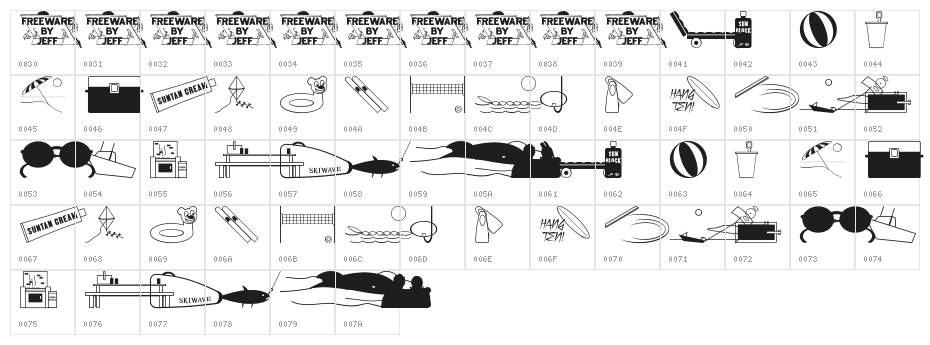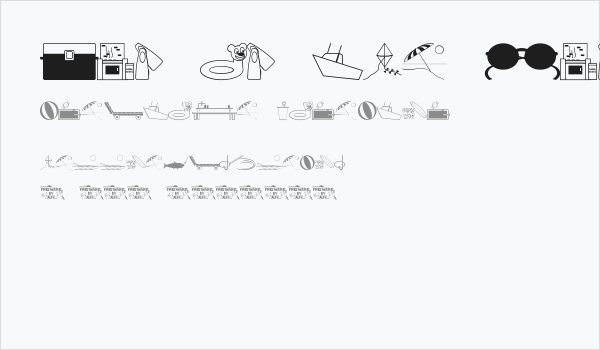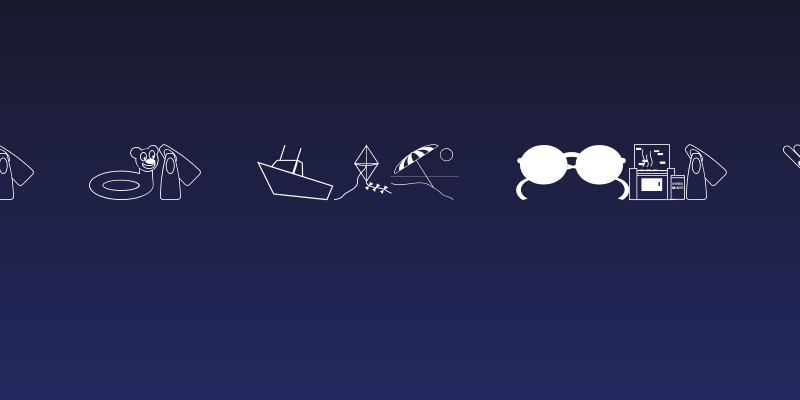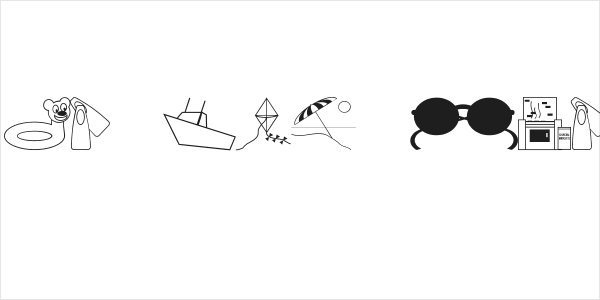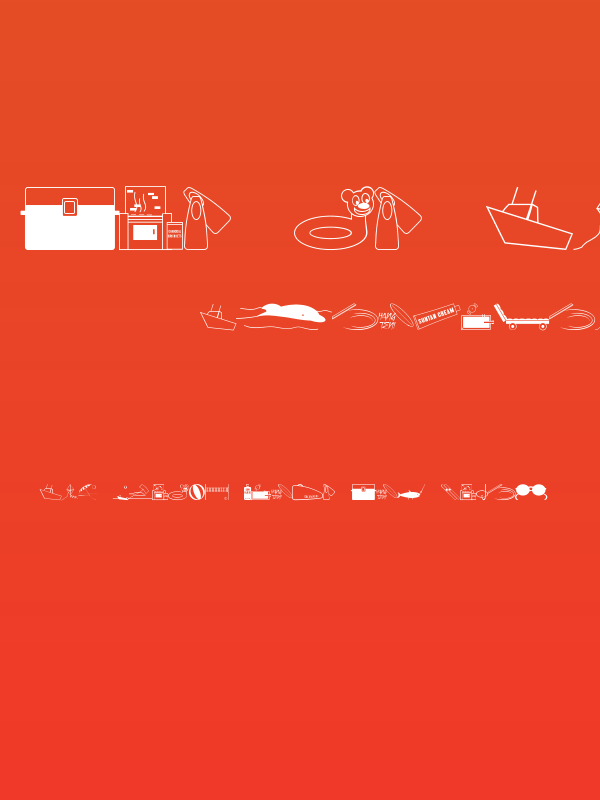
Fun In The Sun JL Font
Fun In The Sun JL Description
A playful dingbat font featuring various summer and beach-themed illustrations such as sunblock, sunglasses, beach balls, surfboards, coolers, kites, and other vacation-related icons. Each character is represented by a unique pictogram rather than traditional alphanumeric glyphs.
| Overall Style | Playful, Decorative |
| Use Case | Decorative elements, Themed graphics, Borders |
| Proposed Projects | Party invitations, summer event flyers, scrapbooking, educational materials, themed posters, decorative borders. |